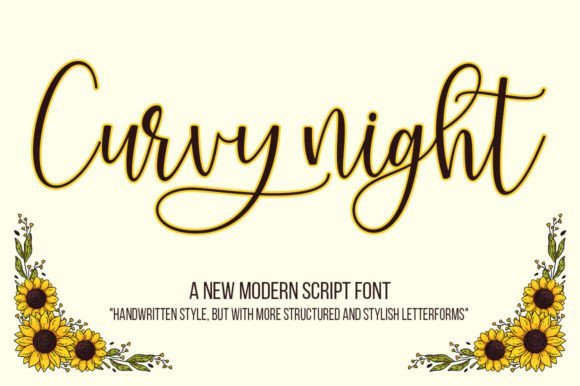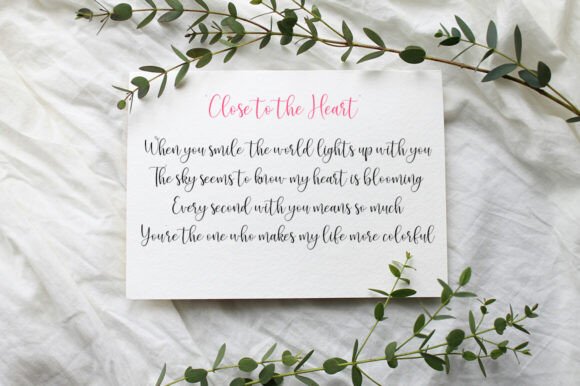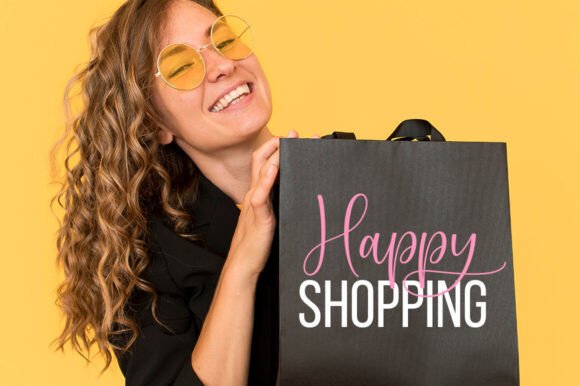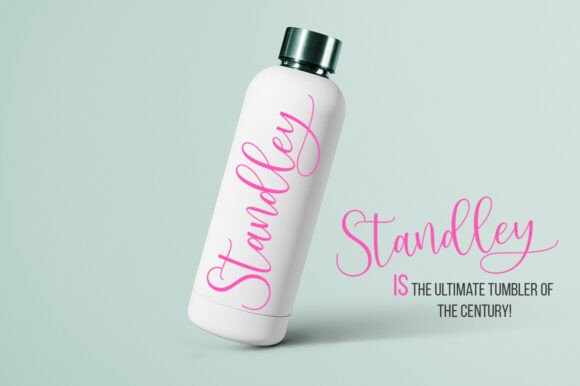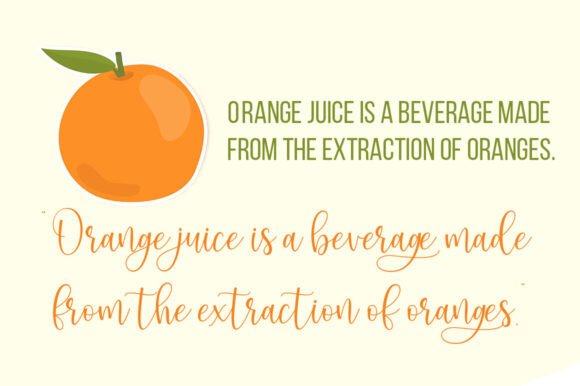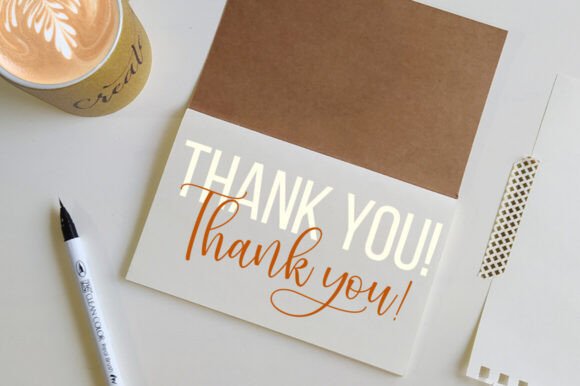
Where Creativity Meets Elegance: Introducing the Curvy Night Font
Have you ever been in the midst of a creative project, flipping through font options, and suddenly, your eyes land on the perfect one? It’s like a spark of inspiration has ignited, and everything falls into place. For designers, this moment is all too familiar, and it’s exactly what happens when you discover the Curvy Night Font.
This contemporary calligraphy design is more than just a font – it’s a statement piece that elevates any project to new heights. With its beautiful swashes and elegant charm, the Curvy Night Font is perfect for designing logos, product packaging, wedding invitations, and more. Its versatility makes it an invaluable asset for designers, allowing them to create unique and eye-catching designs that leave a lasting impression.
Curvy Night Font Key Features
- Font Family: Curvy Night Font is a unique, hand-drawn font family designed for creative purposes.
- Character Set: The font family includes a wide range of characters, including uppercase and lowercase letters, numbers, and punctuation marks.
- Unique Characteristics: The Curvy Night Font features a distinctive, cursive style with curved lines and elegant flourishes, making it ideal for creative projects and designs that require a touch of sophistication.
Curvy Night Font Review
As a designer, I was excited to dive into the Curvy Night Font and see what it had to offer. Overall, I’d say it’s a solid choice for projects that need a touch of elegance and sophistication.
- The Curvy Night Font has a beautiful, cursive feel that’s perfect for adding a touch of whimsy to your designs.
- The font is highly customizable, with a range of weights and styles to choose from.
- It’s highly legible, even at smaller font sizes, making it a great choice for body text.
- The font can feel a bit overused in certain contexts, so be sure to use it sparingly to avoid clichés.
- It may not be the best choice for projects that require a lot of bold, attention-grabbing text.
Overall, I think the Curvy Night Font is a great addition to any designer’s toolkit. While it may have some limitations, its elegant, cursive feel makes it a great choice for a wide range of projects. Just be sure to use it thoughtfully and in the right context.
The Curvy Night Font is ideal for:
- Formal event invitations and announcements
- Luxury brand packaging and labels
- High-end marketing materials and advertising
To get the most out of the Curvy Night Font, use it in combination with other elegant and sophisticated design elements, such as:
- Soft pastel colors
- Gold or silver accents
- High-end textures and patterns
Alternatives to Curvy Night Font
Great Vibes is a beautiful, elegant script font perfect for adding a touch of sophistication to your designs. It’s ideal for use in titles, headings, and other text elements where you want to create a sense of luxury and refinement.
Compared to Curvy Night Font, Great Vibes has a more refined and polished look, with a more consistent flow and a wider range of letterforms. It’s a great choice if you want a font that’s a bit more formal and elegant.
Carolyna Pro is a modern, elegant script font that’s perfect for use in a wide range of design projects. It’s ideal for titles, headings, and other text elements where you want to create a sense of sophistication and elegance.
Compared to Curvy Night Font, Carolyna Pro has a more modern and sleek look, with a wider range of letterforms and a more consistent flow. It’s a great choice if you want a font that’s a bit more contemporary and stylish.